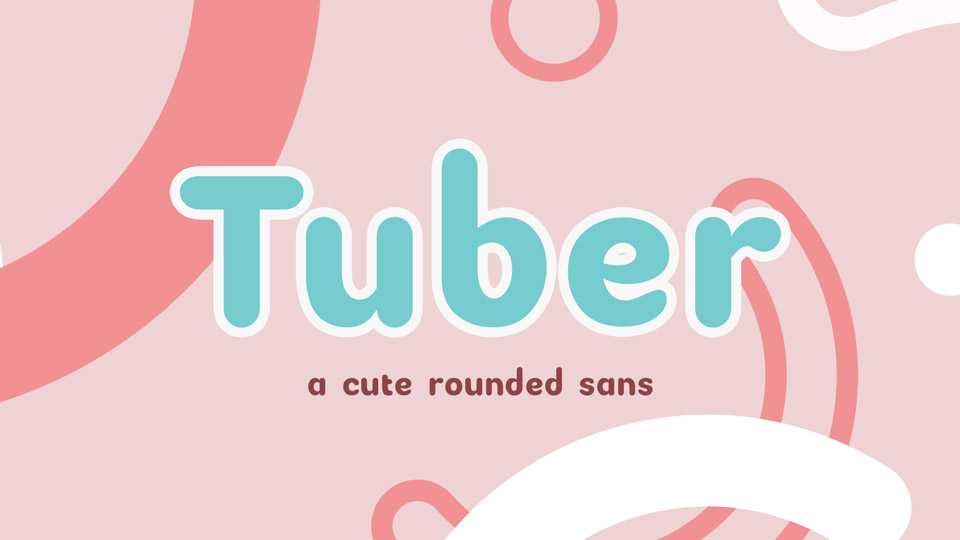
Download Tuber font, a cute rounded sans serif typeface with friendly and soft look. Tuber font perfectly fits for crafts, comics, kids products, games and other graphics.
Designer: Jason Reed